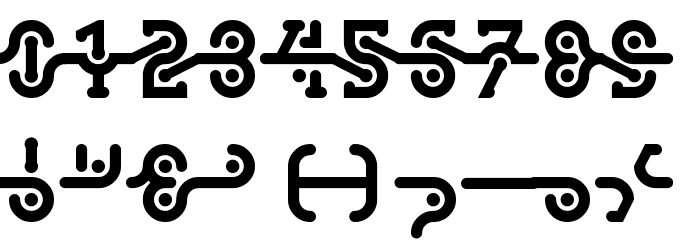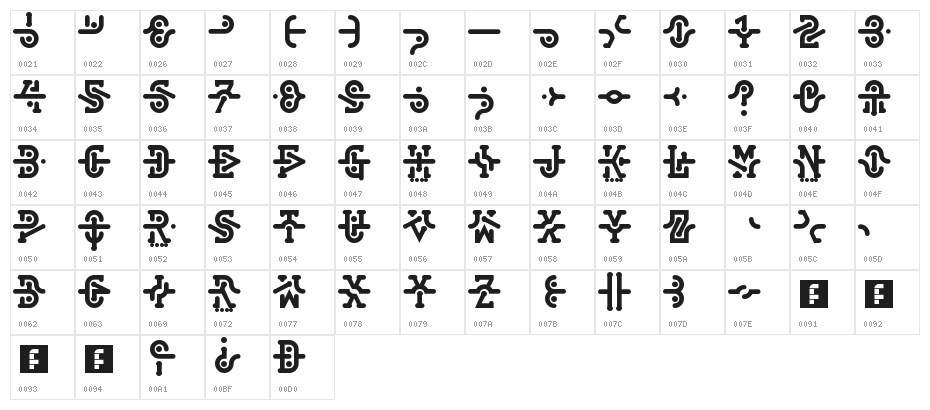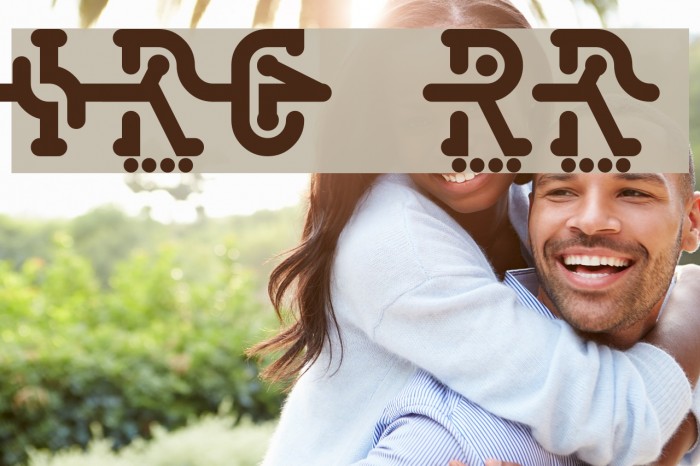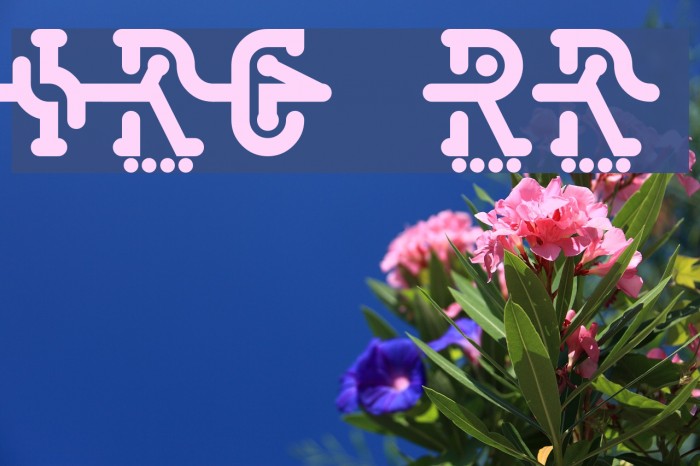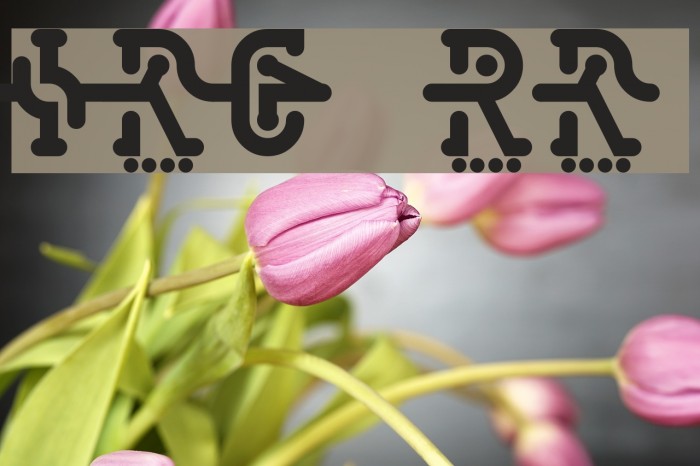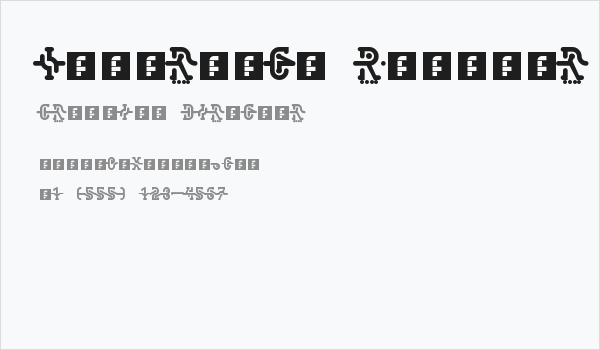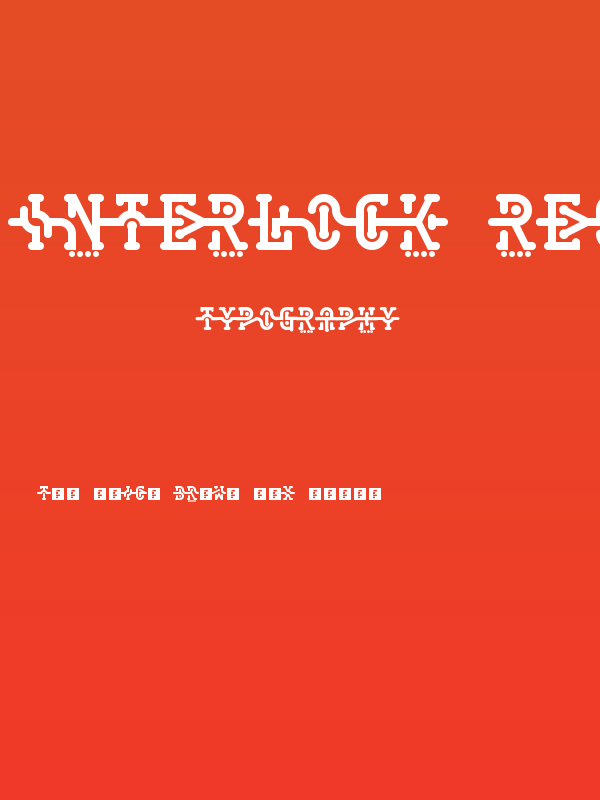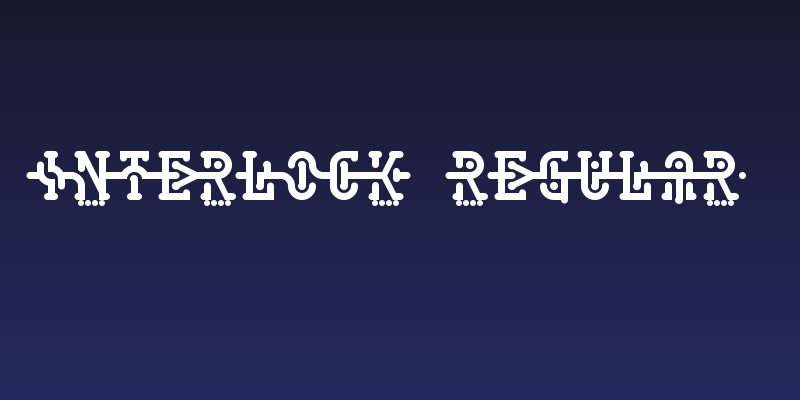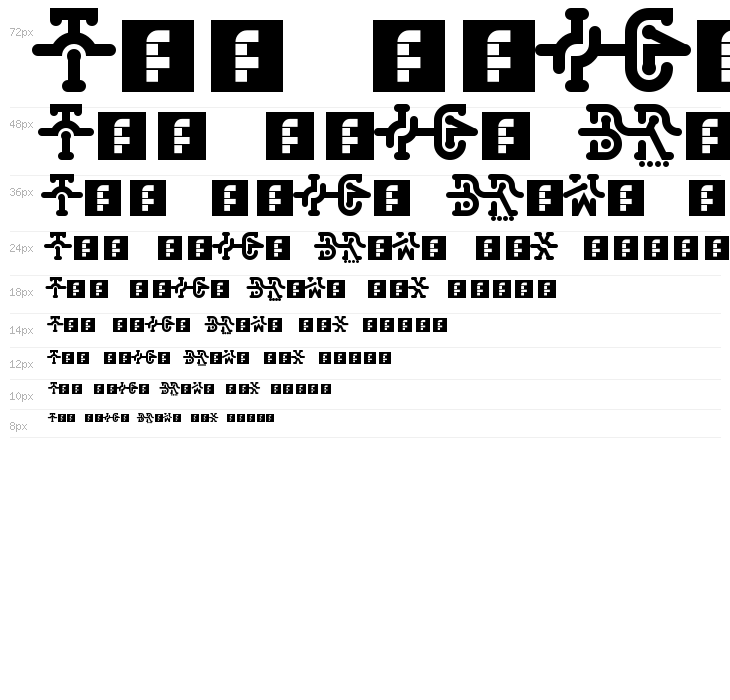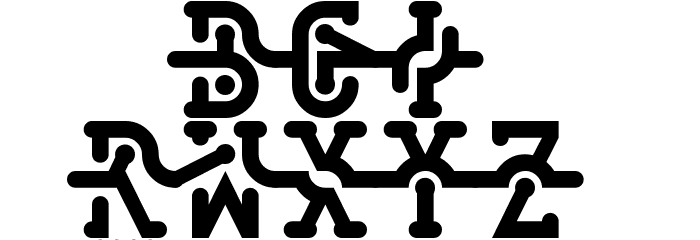
Interlock Regular Font
Interlock Regular Description
This font features an intricate and interconnected design, where each character is uniquely crafted with overlapping and interlocking lines. The bold strokes and geometric shapes create a visually striking appearance, making it ideal for decorative purposes. The uppercase and lowercase letters maintain a consistent style, with the numerals and special characters following the same design principles. The font's playful and artistic nature makes it stand out, offering a modern twist on traditional typography.
| Proposed Projects | Ideal for branding, posters, album covers, and creative design projects that require a unique and artistic touch. |